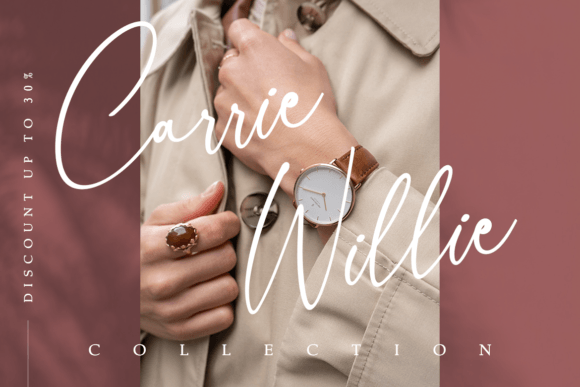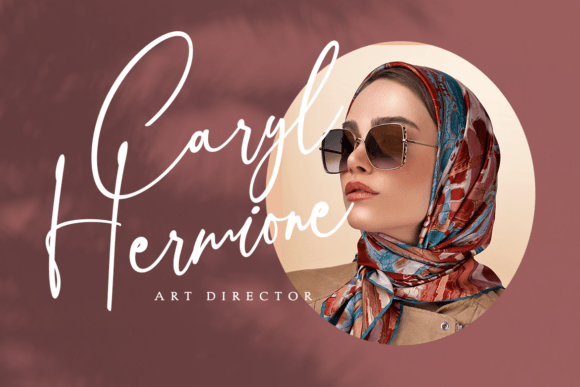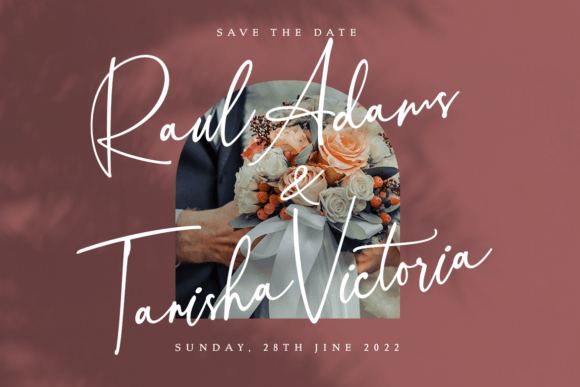
Introduction to Kaitlyn Font
Have you ever been working on a creative project and suddenly, the perfect font appears to elevate your design? For many designers, this moment is pure magic. It’s the moment when all the pieces come together, and your vision starts to take shape. For those who’ve experienced this bliss, we have some exciting news: the Kaitlyn Font is here to take your designs to the next level.
This beautiful modern calligraphy typeface is more than just a pretty face – it’s a versatile design resource that can be used for a wide range of applications, from branding and signature designs to wedding invitations and business cards. With its high-quality design and transparent background, the Kaitlyn Font is the perfect addition to any designer’s toolkit.
Key Features of Kaitlyn Font
- High-quality, professional font suitable for various creative projects, including graphic design and digital art.
- Designed with a unique, modern aesthetic, making it an ideal choice for contemporary creative projects.
- Includes a comprehensive character set, including uppercase and lowercase letters, numbers, and punctuation marks.
Honest Review: Kaitlyn Font
As a designer, I’m always on the lookout for high-quality design resources to enhance my creative projects. The Kaitlyn Font caught my attention, and I was excited to give it a try.
- ✨ Elegant and modern design style, perfect for fashion or lifestyle branding
- ✨ High-quality font files with a transparent background, making it easy to use in various design contexts
- ⚠️ Limited character set, which may not be ideal for complex text-heavy designs
Overall, I’m impressed with the Kaitlyn Font’s design aesthetic and the convenience of the free download option. While it has some limitations, it’s still a valuable design resource for creatives looking to add a touch of elegance to their projects.
How to Use Kaitlyn Font
Some common use cases for Kaitlyn Font include creating social media graphics, designing wedding invitations, and making presentations for business meetings. To get the most out of the font, experiment with different font sizes and colors to create a unique and eye-catching design. You can also use the font in combination with other design elements to create a cohesive and professional-looking design.